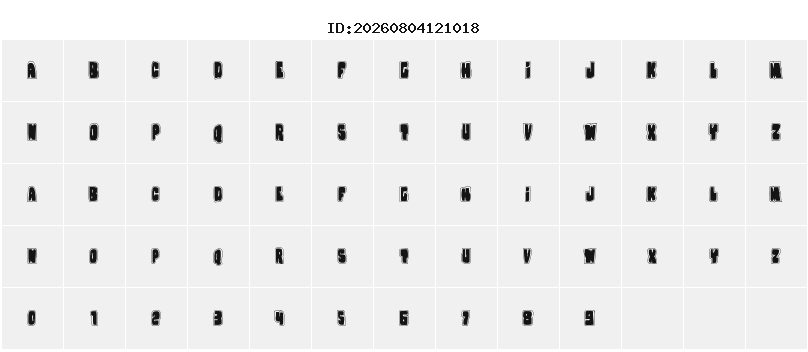
Nobody's Home Academy Preview
• Font Name: Nobody's Home Academy
• Full Font Name: Nobody's Home Academy
About Nobody's Home Academy.ttf
Nobody's Home Academy.ttf is a modern, elegant sans-serif font designed for ultimate readability and visual harmony. Perfect for branding, headlines, web design, and print materials.